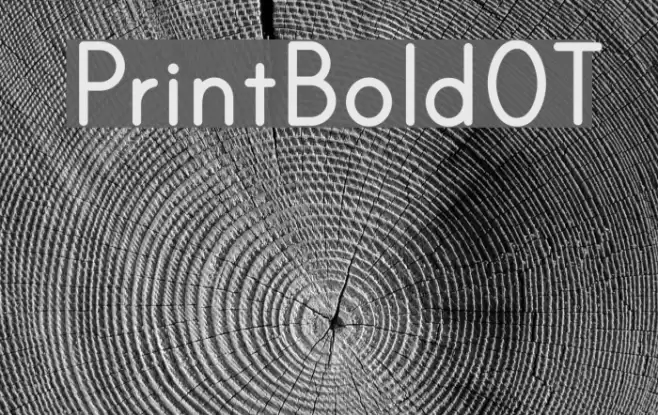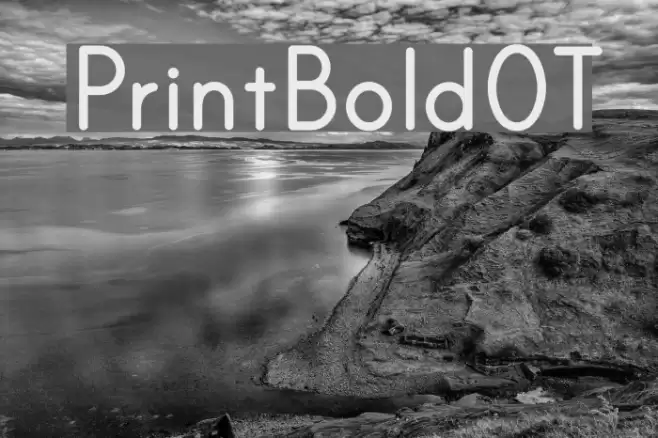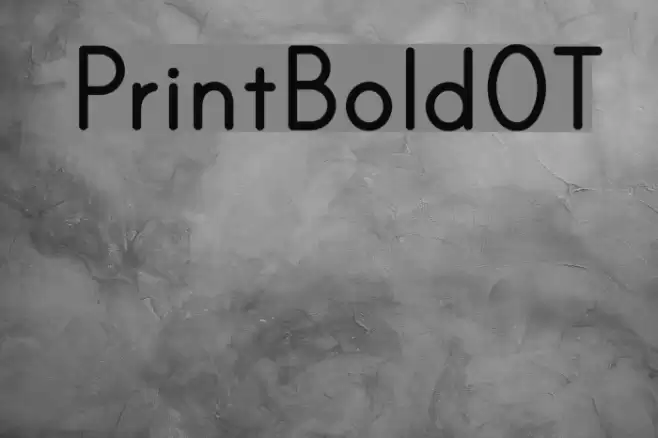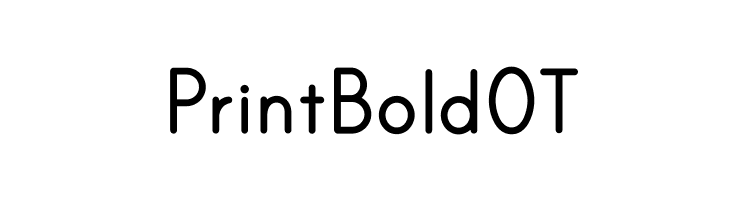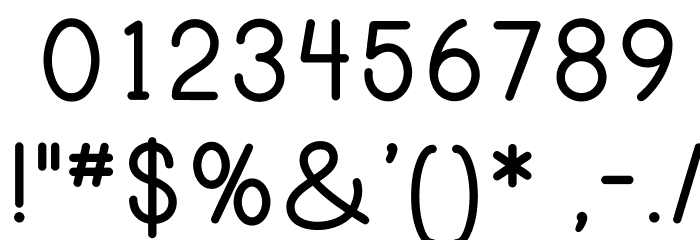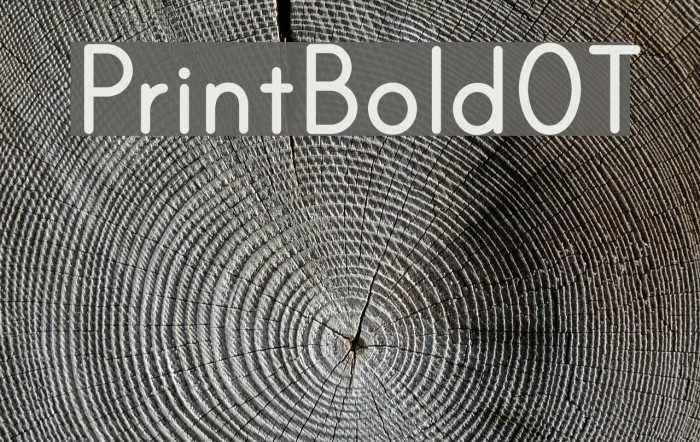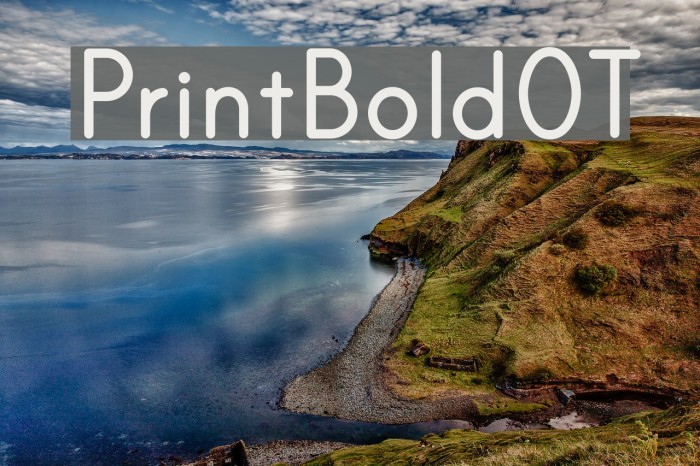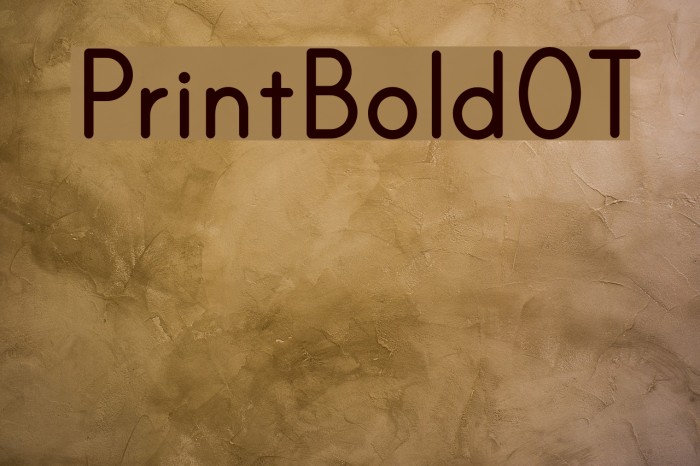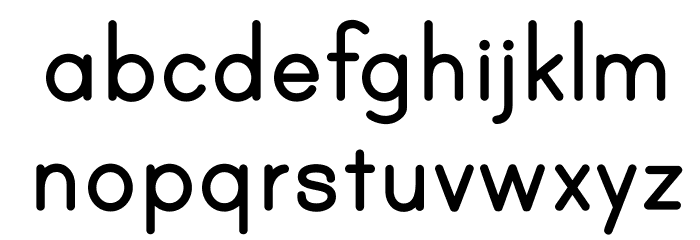
PrintBoldOT
This font features a clean, modern sans-serif design with rounded edges, giving it a friendly and approachable appearance. The characters are evenly spaced, providing a balanced and harmonious look. The uppercase letters are bold and prominent, while the lowercase letters maintain a consistent style with slightly reduced height, enhancing readability. The numerals are clear and distinct, matching the overall aesthetic. Special characters are well-integrated, maintaining the font's cohesive style. This font is versatile, suitable for various design applications where clarity and modernity are desired.
A modern sans-serif font with rounded edges and balanced spacing.
- Proposed Projects: Ideal for branding, advertising, web design, and user interfaces where a modern and approachable look is needed.